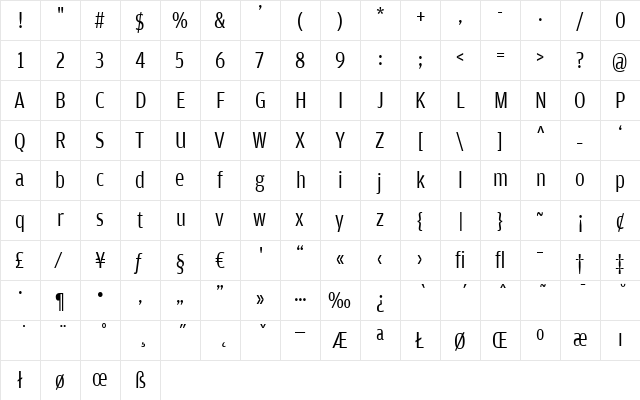
AmplitudeCond-Book Regular
| Foundry | The Font Bureau, Inc |
| Designer | Christian Schwartz |
Design Context for AmplitudeCond-Book Typeface
AmplitudeCond-Book takes a measured approach to typography — its balanced proportions and neutral character make it a reliable workhorse for both digital and print work. Its narrow stance lets it pack a punch even in space-constrained designs.